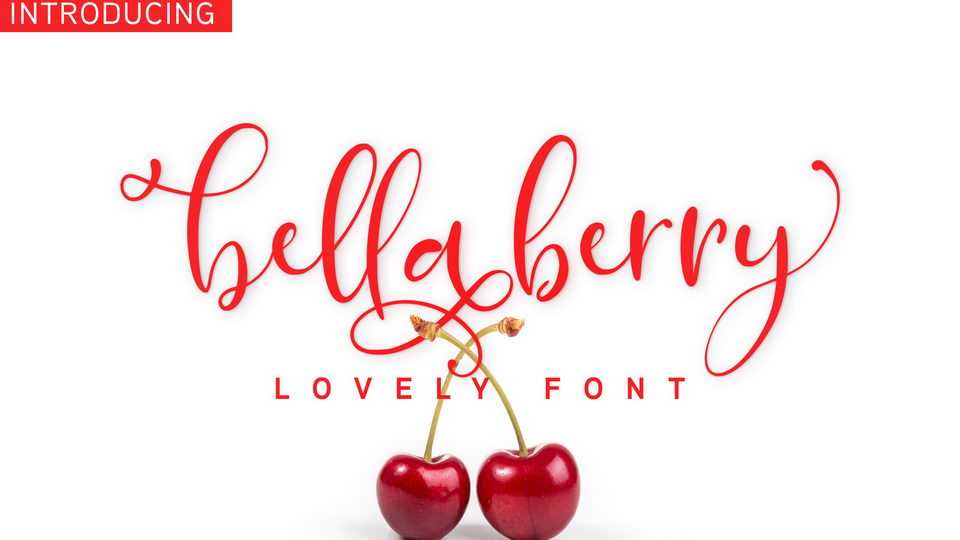
Download BellaBerry font, a lovely modern calligraphy script. BellaBerry font is perfect fo you up coming projects, such as modern invitation design, branding stationery design, wedding, birthday, quote, craft, etc.